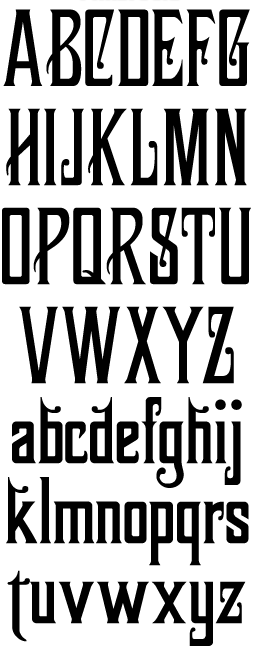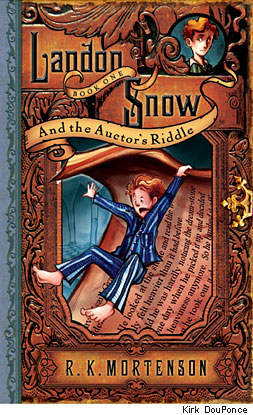
An old turn of the century style commonly used on billheads, letterheads, certificates, etc. Includes full punctuation, numerals, foreign characters and 3 alternates.